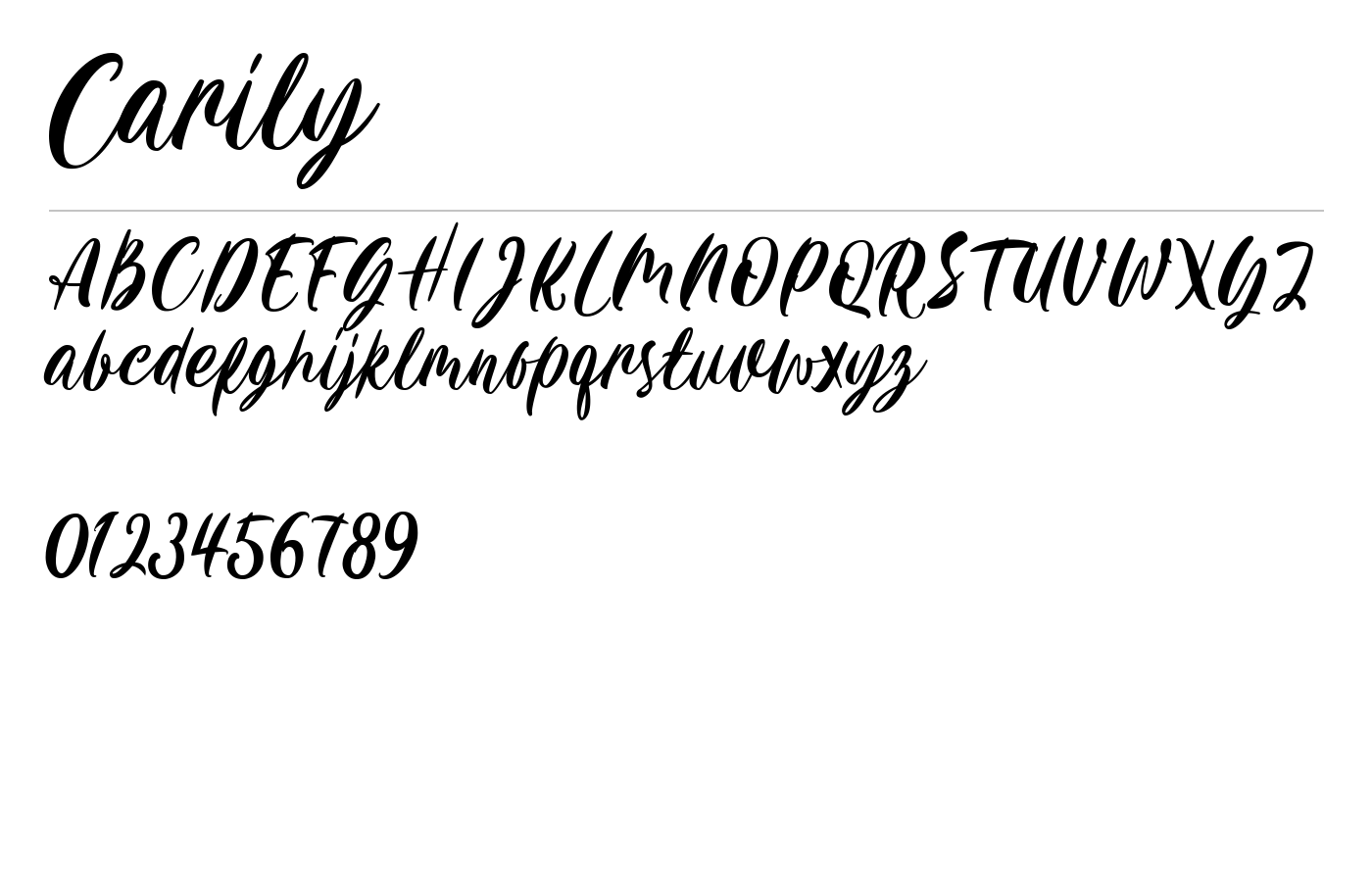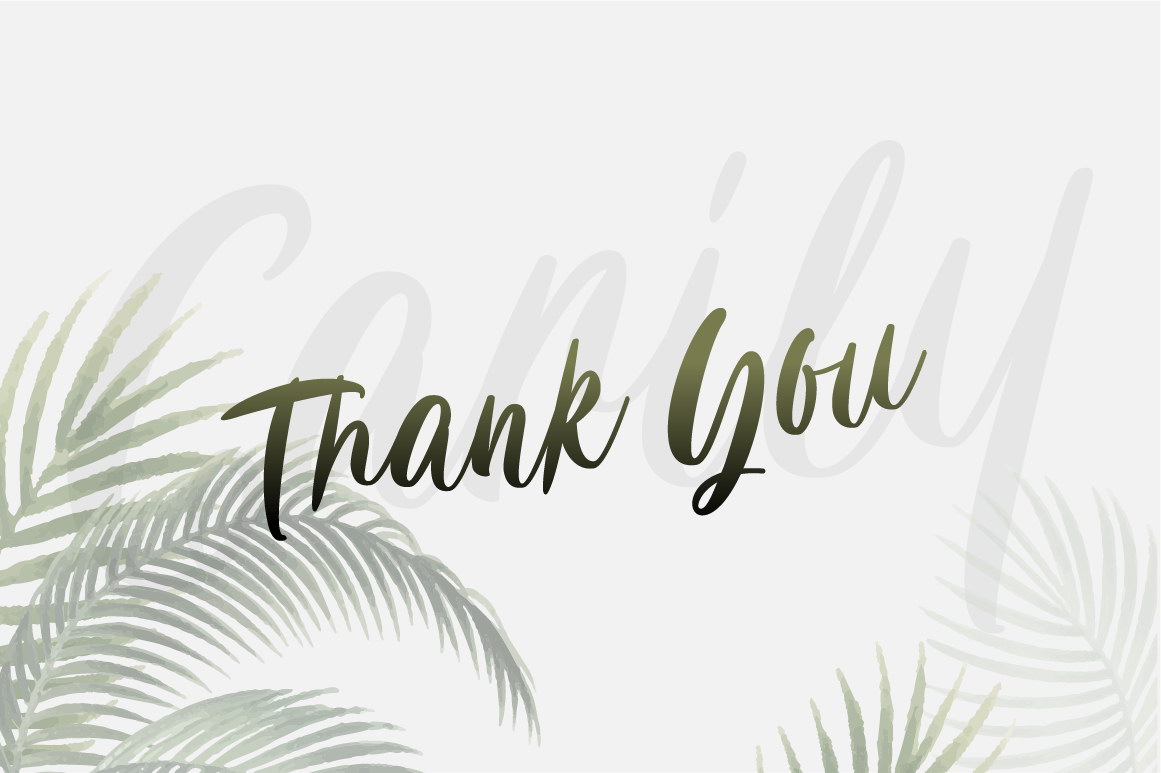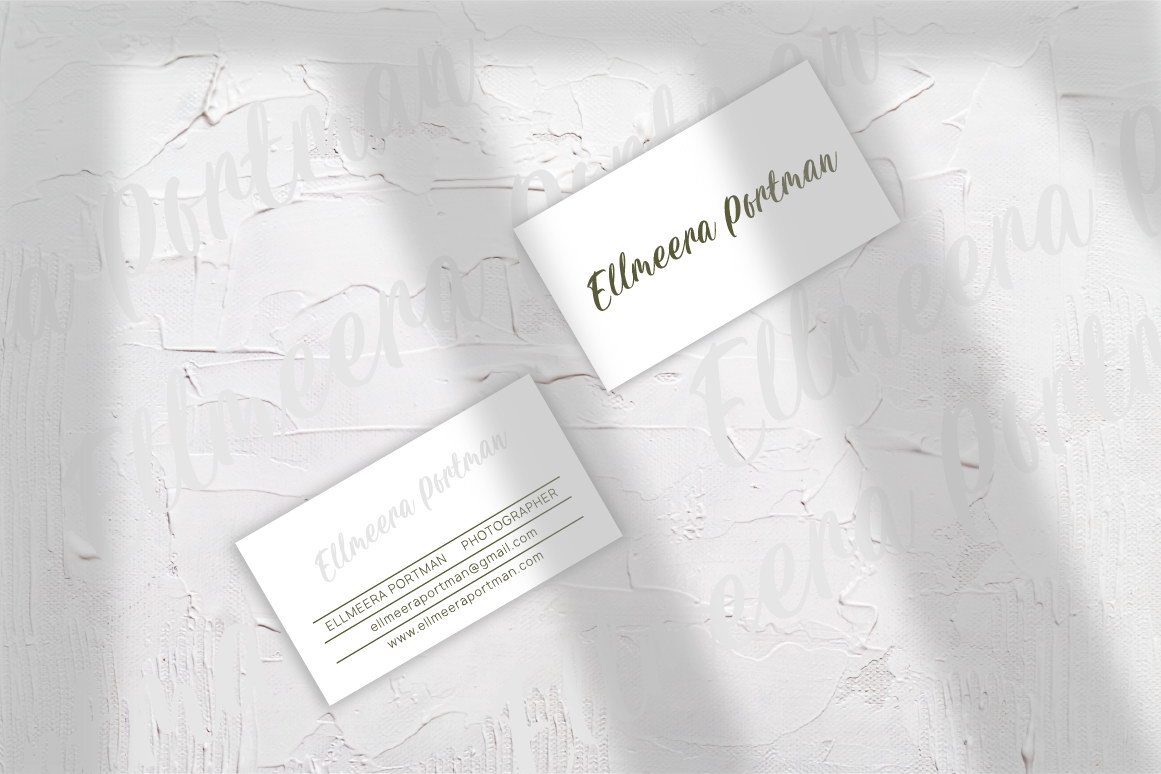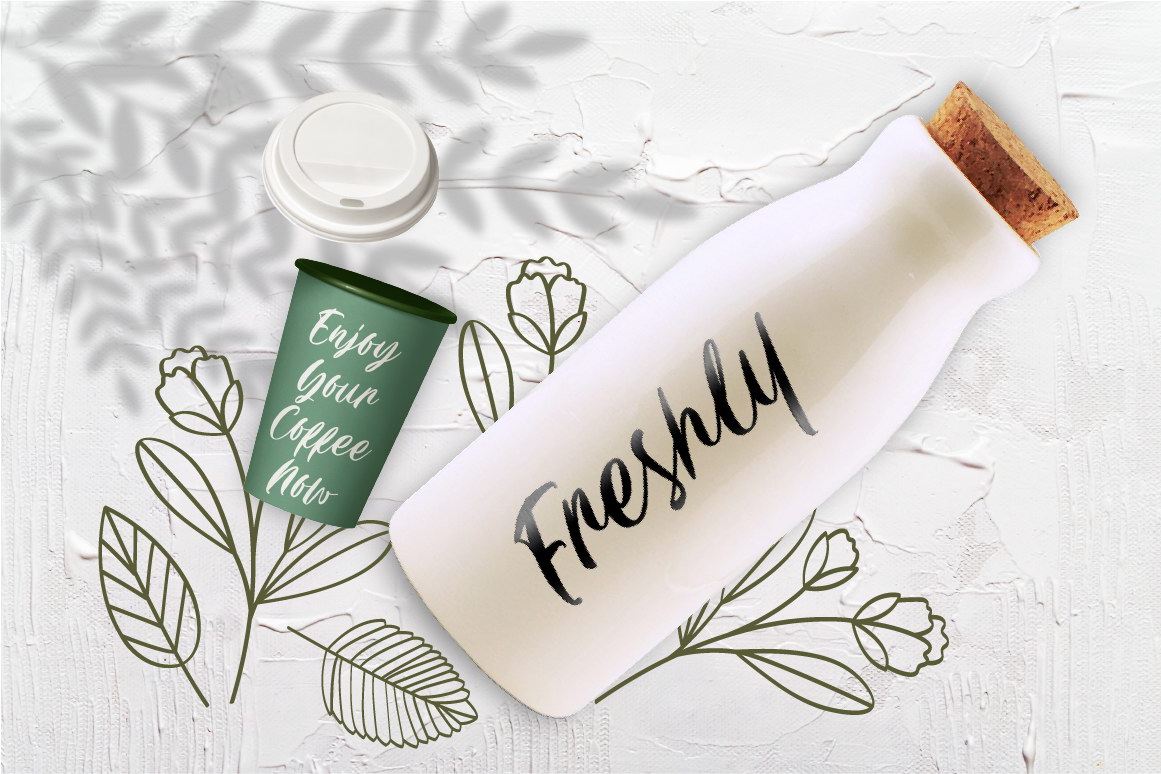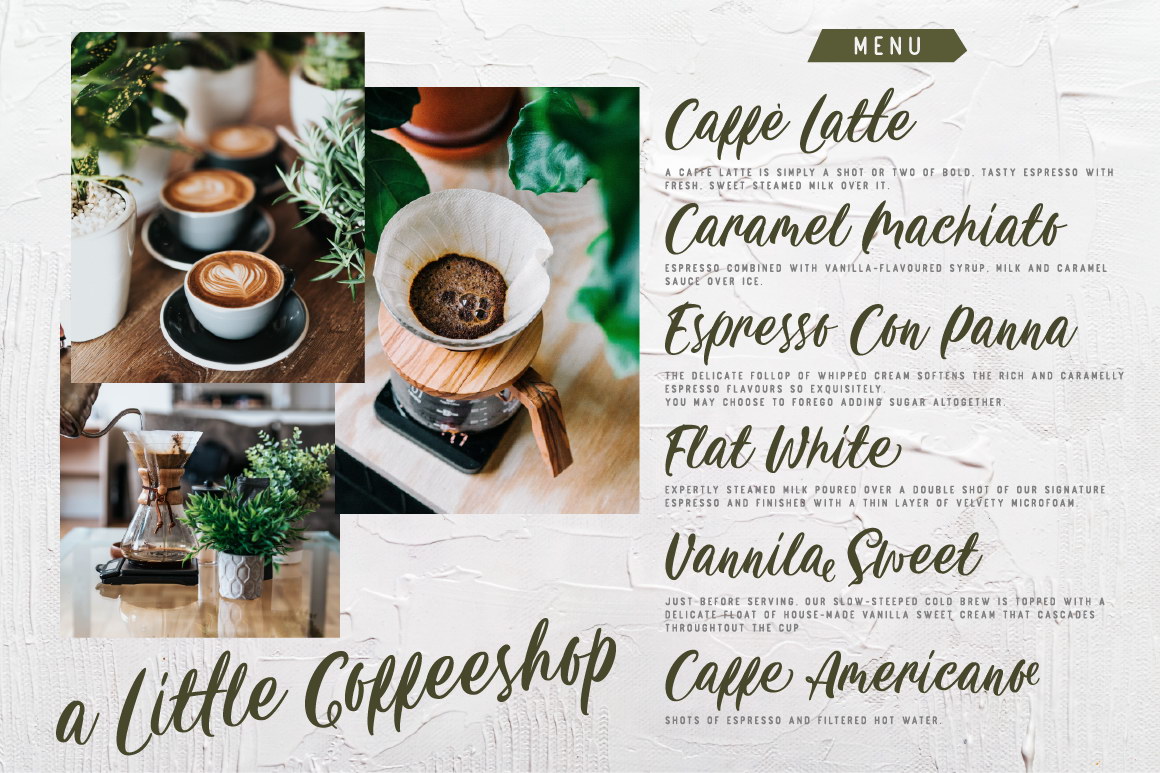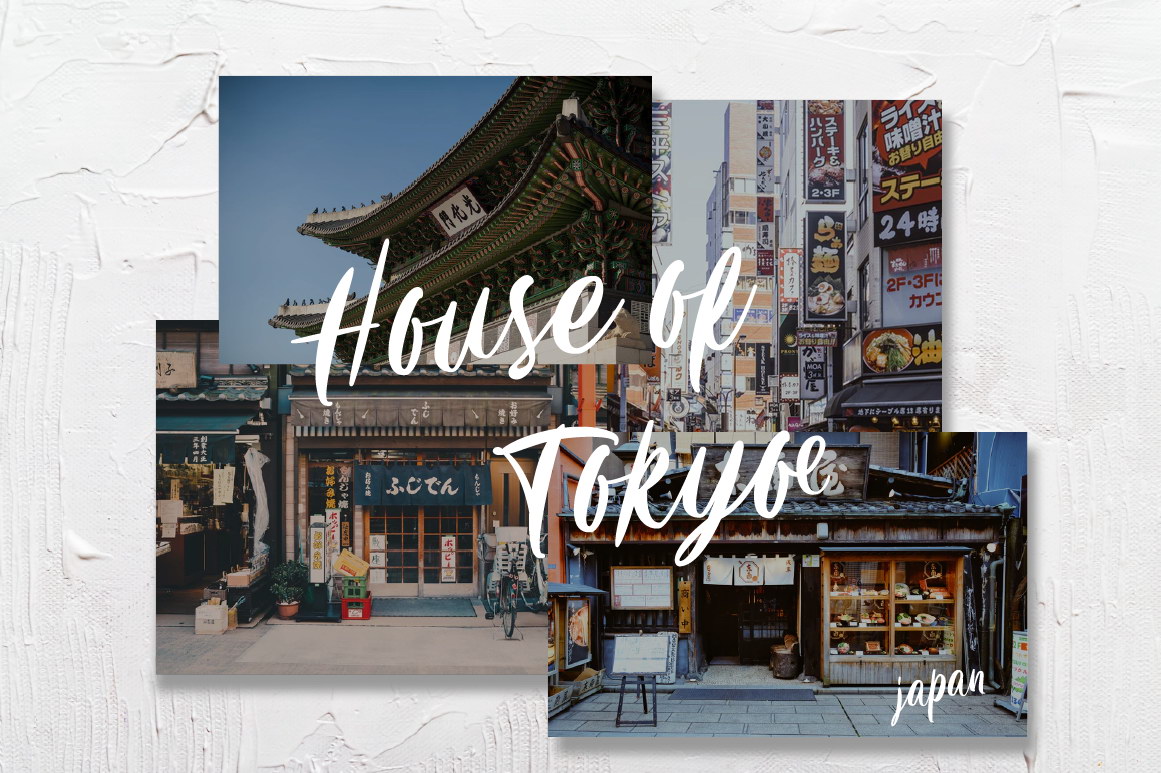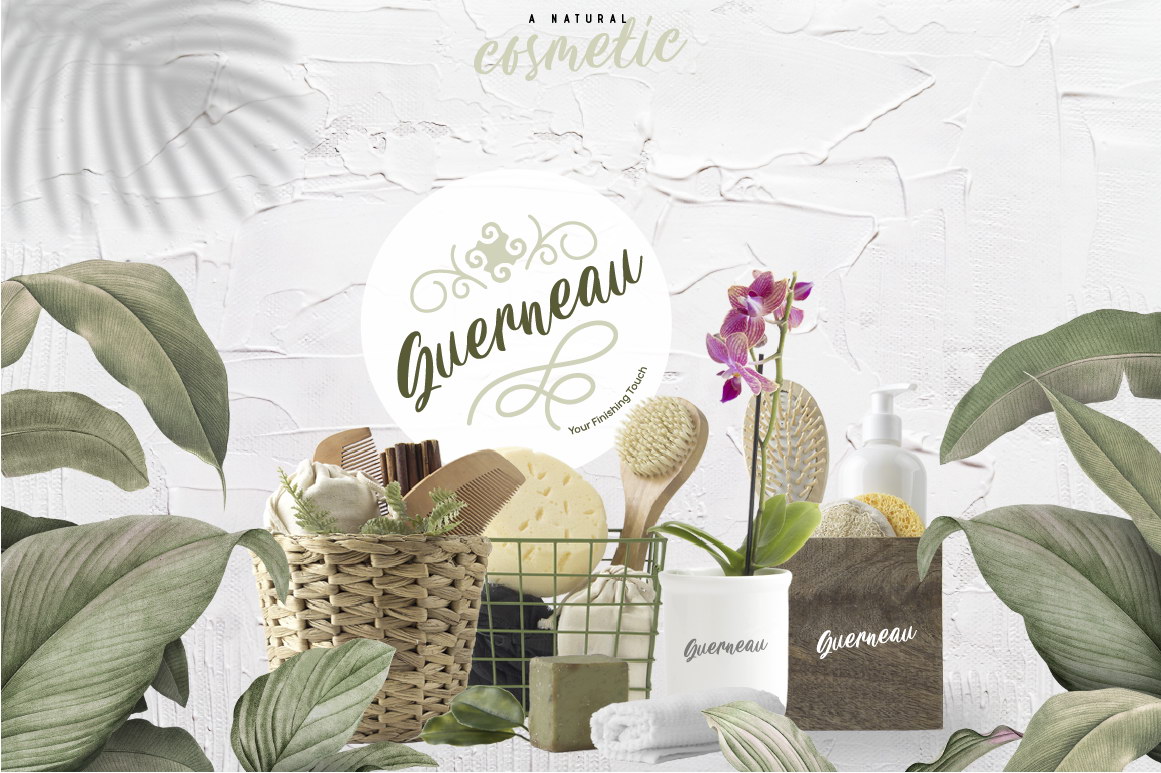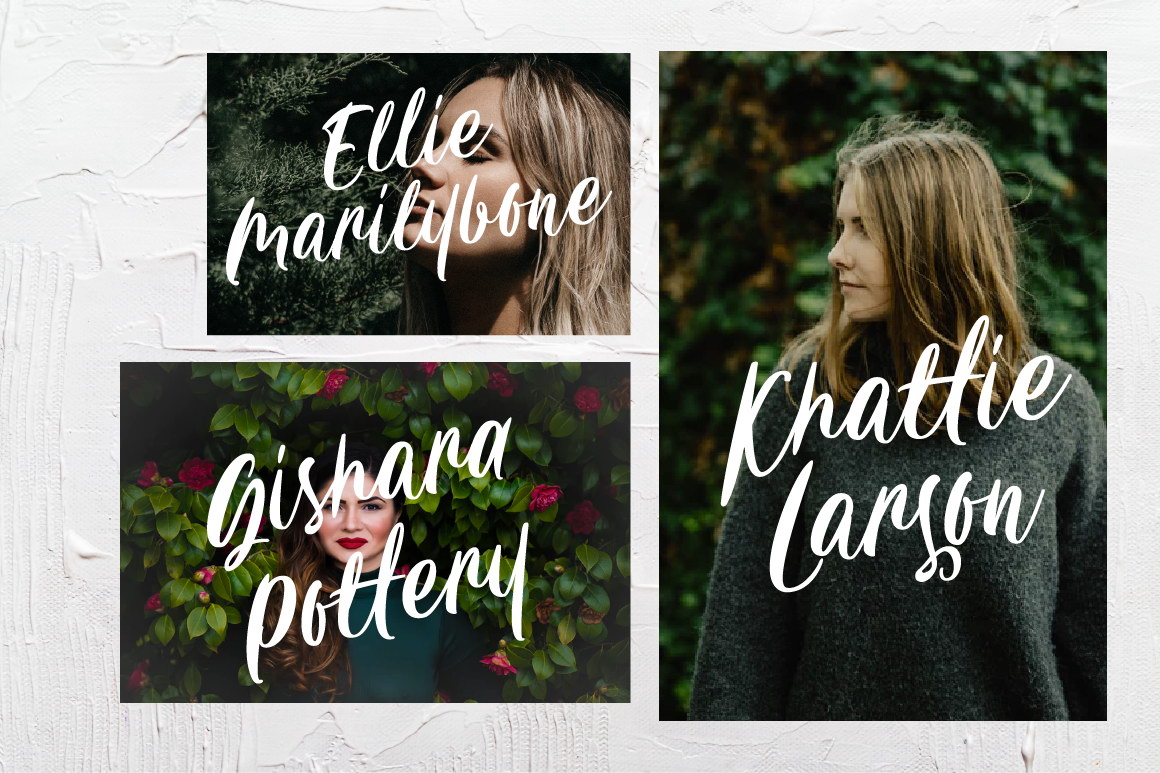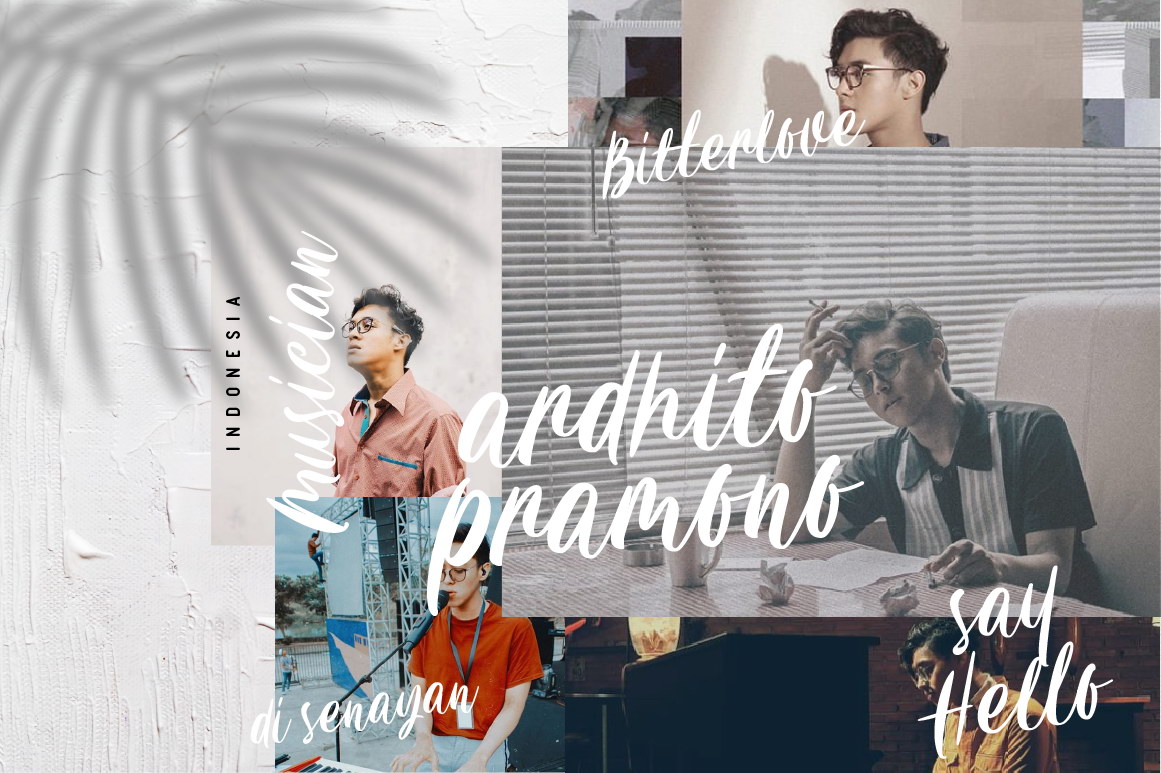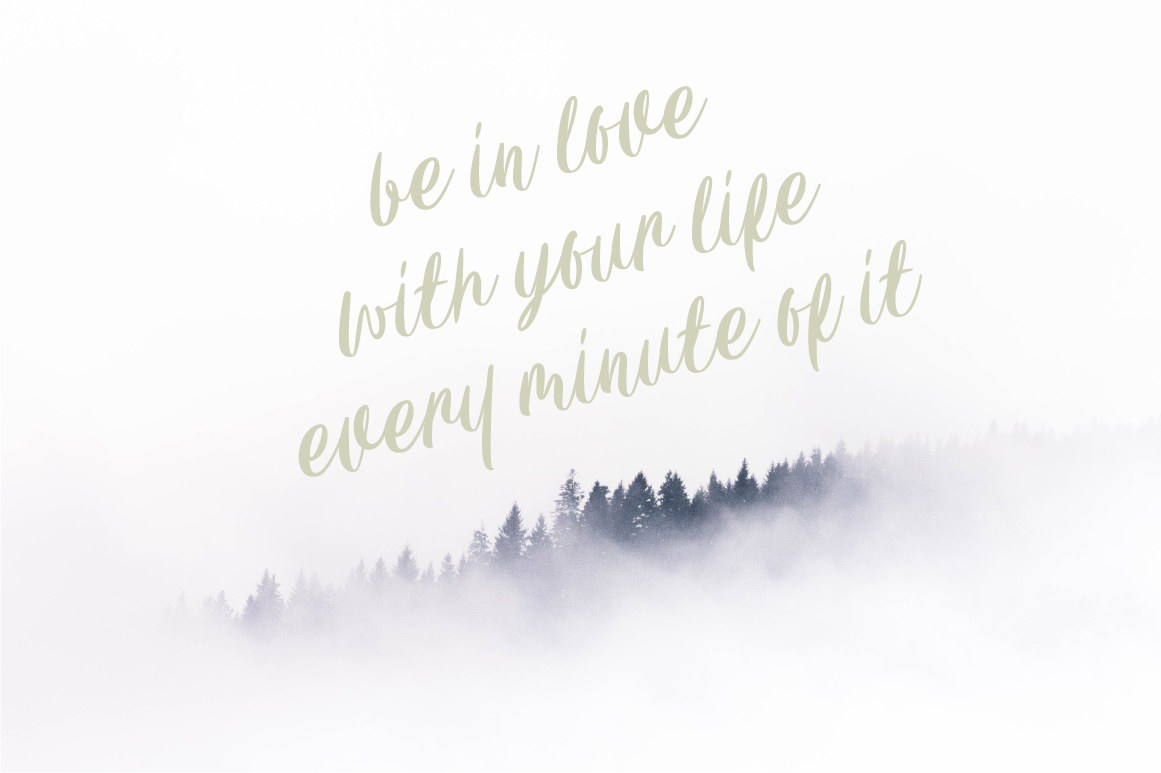
Carily Brush is a stylish script font with a hand-painted feel, showcasing fluid, natural brush strokes that give it a lively and personal touch. Its moderately high contrast and elegant, flowing letterforms make it perfect for creative projects, branding, and expressive headlines that need a warm, artistic vibe. This font works especially well for invitations, logos, and packaging where a handwritten, approachable yet refined look is desired.
Carily Brush Font
About Carily Brush Font